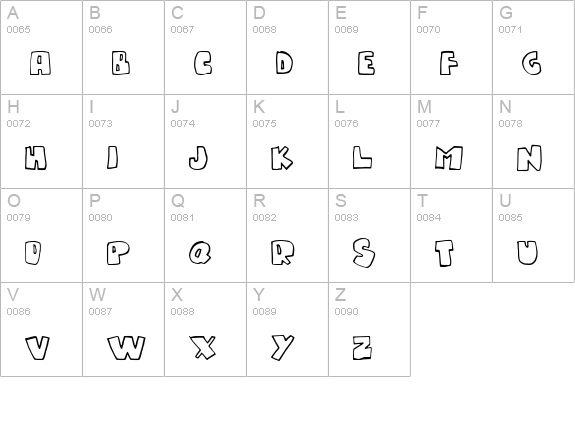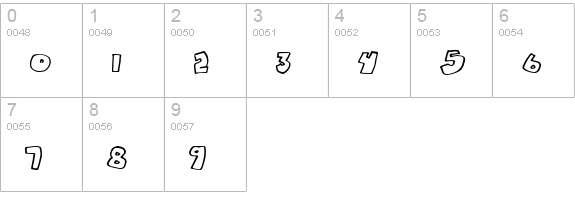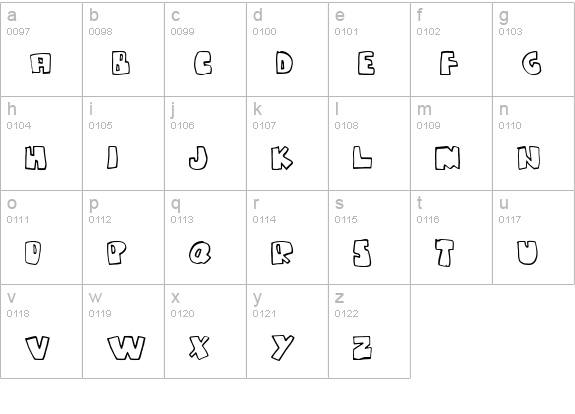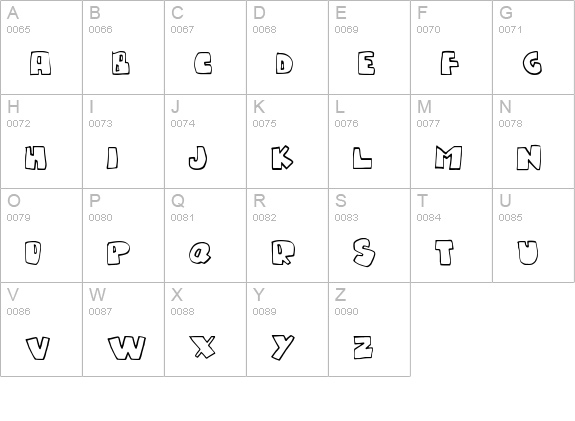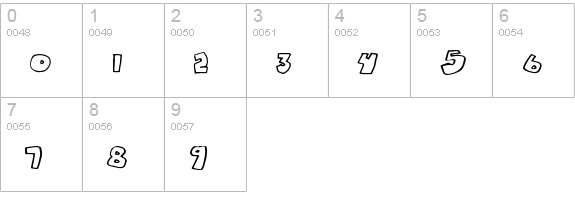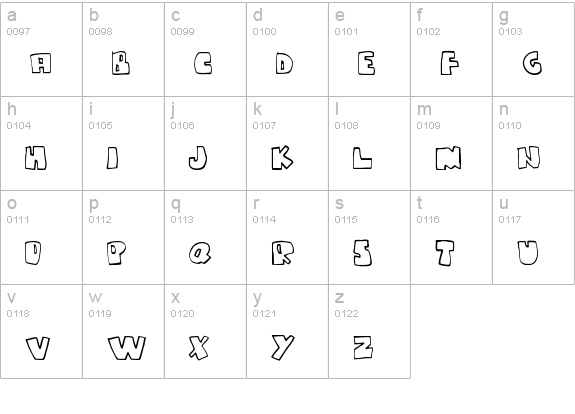
Gumpy one Font Details
Gumpy One font is a charming and whimsical typeface that will bring a touch of playfulness to your designs. With its rounded edges and quirky letterforms, this font is perfect for adding a fun and friendly vibe to any project. Whether you're creating greeting cards, posters, or branding materials, Gumpy One is sure to make your text stand out. The best part? Gumpy One font is completely free to download at FontsMarket.com. Simply head over to the website and start using this delightful font in your designs today. Don't miss out on the opportunity to add a touch of personality to your projects with Gumpy One font.